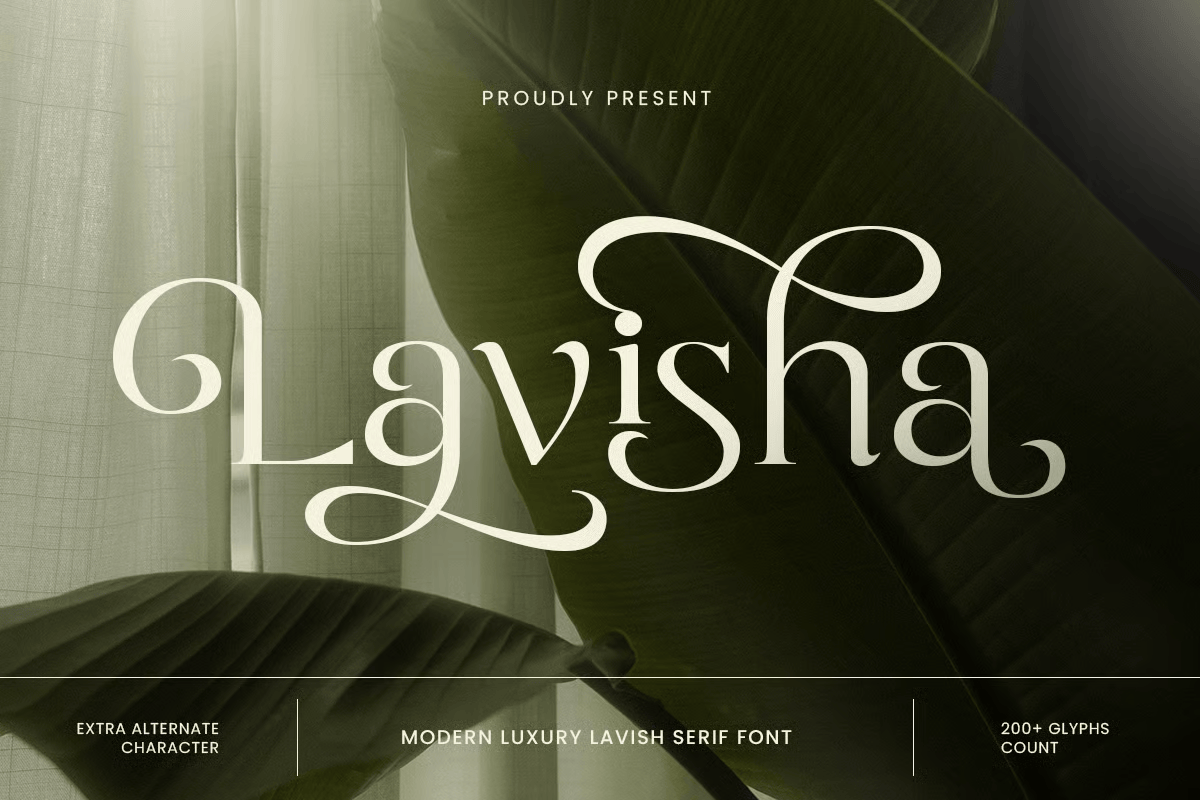
Lavisha
-Modern Classy Lavish Serif Font
Lavisha
Lavisha is a modern classy lavish serif font designed to express elegance, confidence, and premium quality. With its refined proportions, graceful curves, and sophisticated contrast, Lavisha delivers a timeless yet contemporary feel that elevates any visual identity.
Perfectly suited for classy branding, high-end logos, fashion labels, beauty products, and editorial layouts, this serif typeface brings an unmistakable sense of class to both print and digital designs. Its stylish character makes it ideal for headlines, packaging, invitations, and premium marketing materials.
Whether you’re building a fashion brand, a luxury product line, or an upscale event identity, Lavisha provides a strong typographic foundation that feels exclusive, polished, and unforgettable.
Lavisha – Modern classy Serif Features
• Elegant modern serif letterforms with a lavish aesthetic
• Ideal for luxury branding, logos, fashion, and editorial design
• Refined proportions for a classy and premium look
• Suitable for both print and digital applications
• OpenType features for creative flexibility
Elevate your visual identity with Lavisha – a modern classy serif designed for timeless elegance. ✨